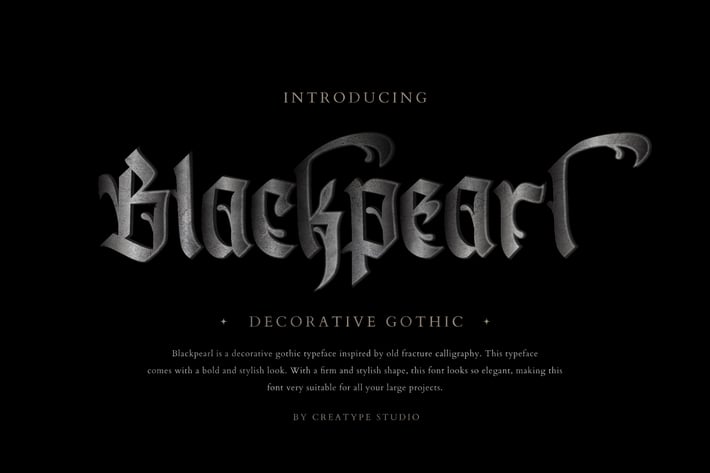
Blackpearl Gothic Business Font
Blackpearl is a decorative gothic inspired by the blackletter font. These fonts are specially crafted and pay close attention to strokes resulting in great looking fonts with their unique and bold shapes.
Blackpearl is perfect for branding projects, logo, wedding designs, social media posts, advertisements, product packaging, product designs, label, photography, watermark, invitation, stationery and any projects that need handwriting taste.
Ton of glyphs
Ligature & Alternate